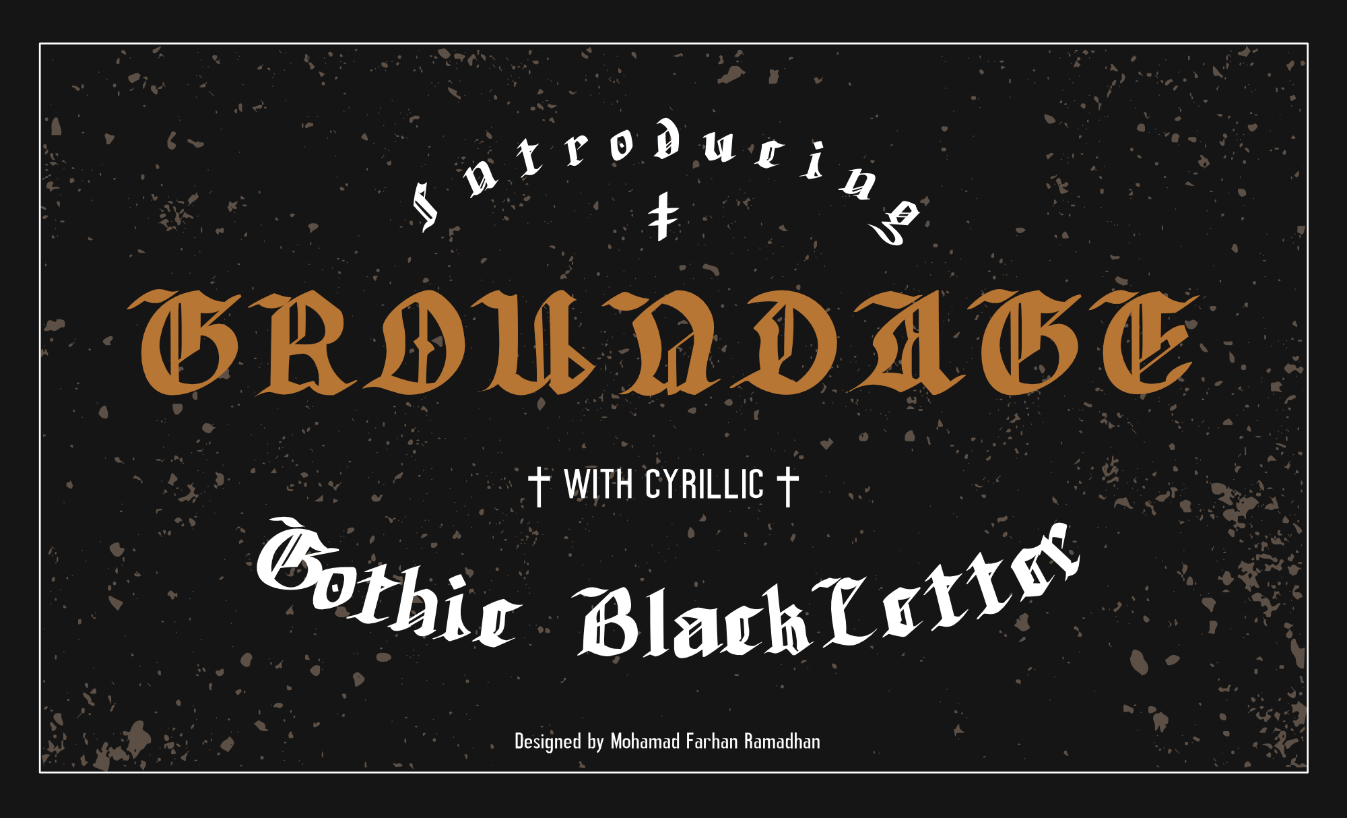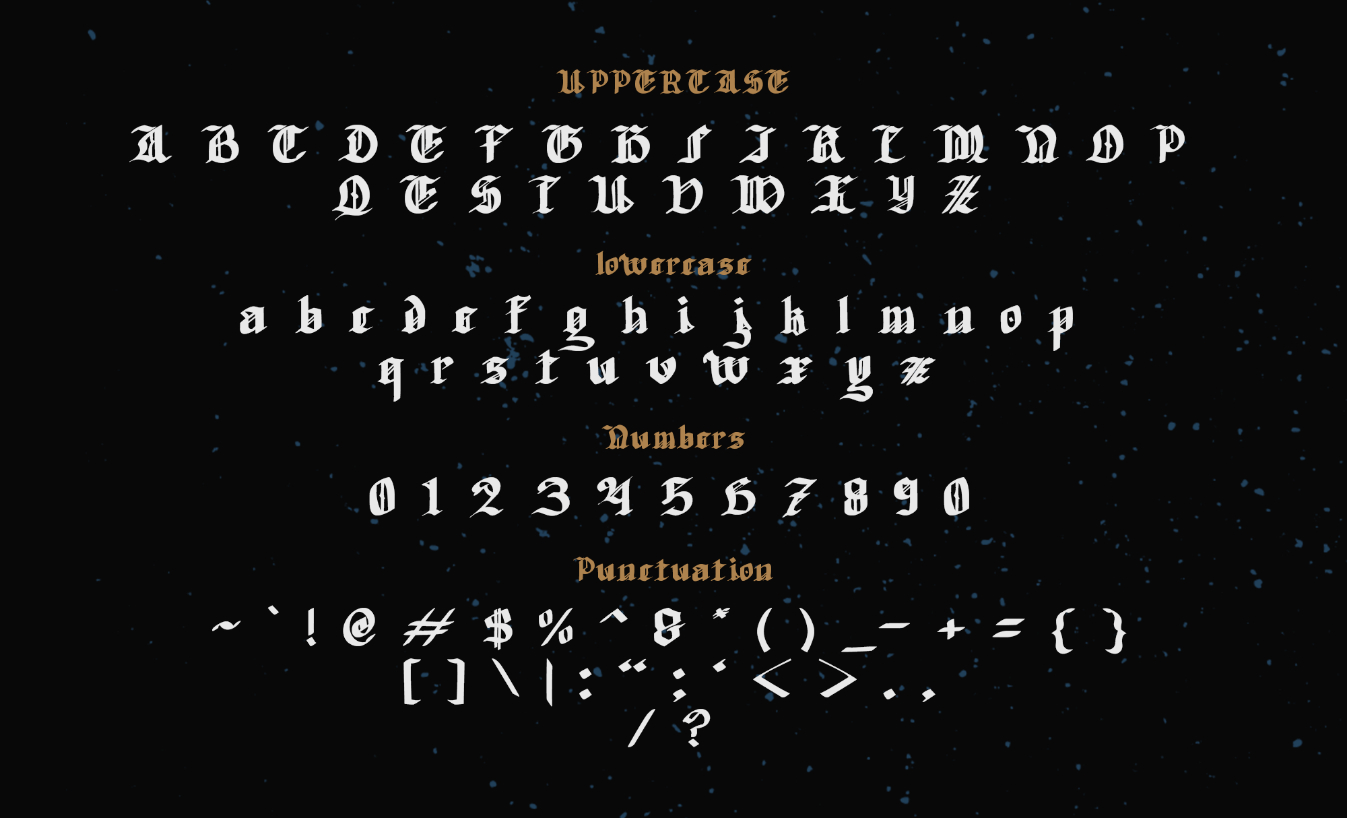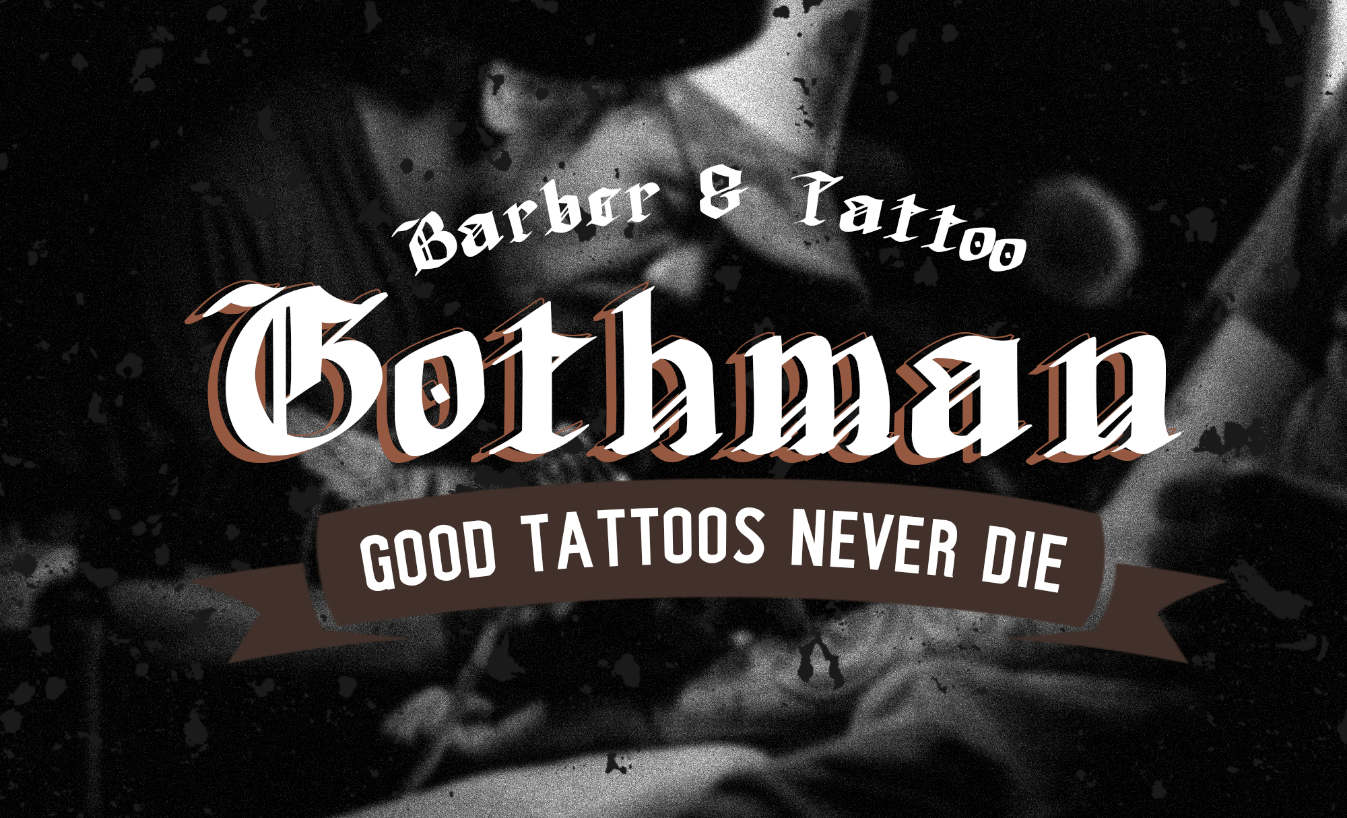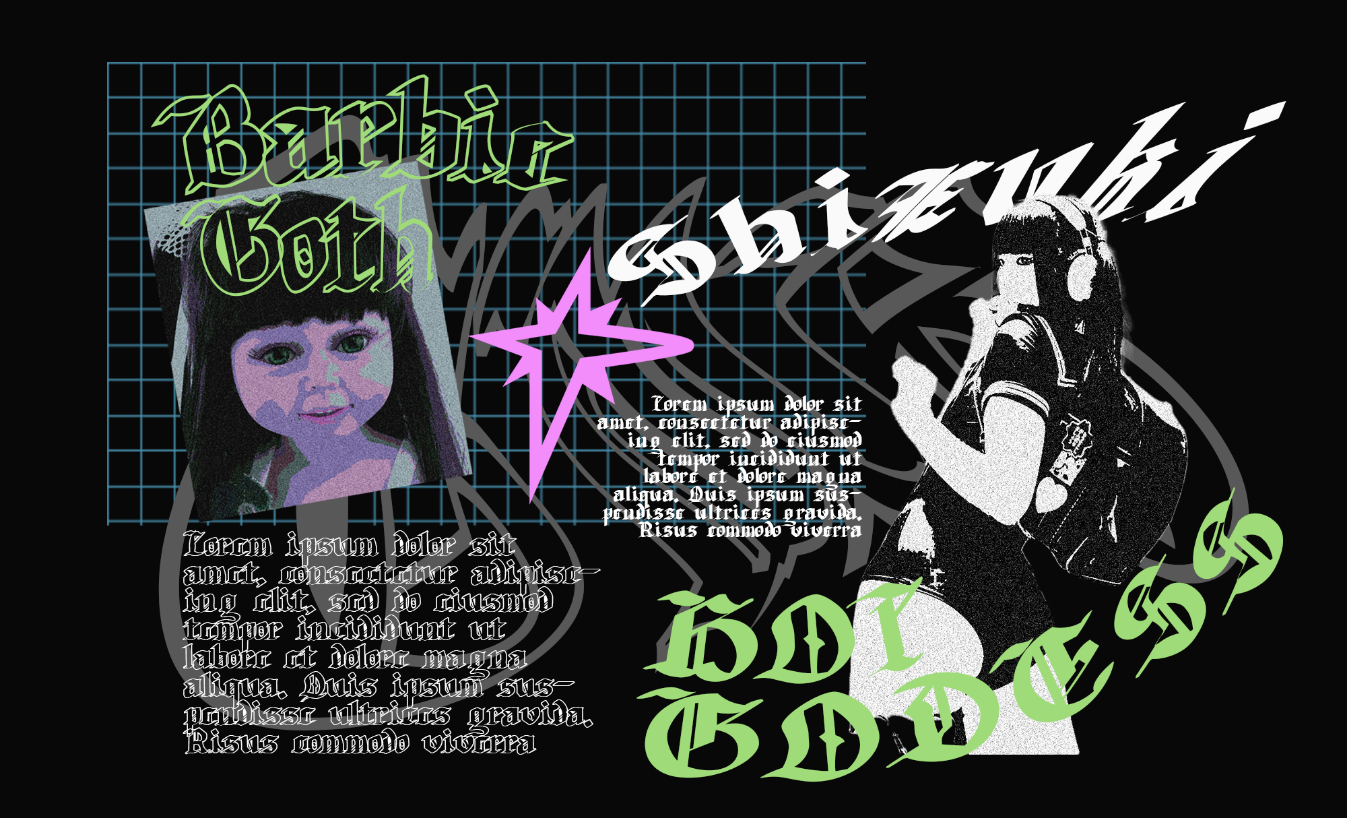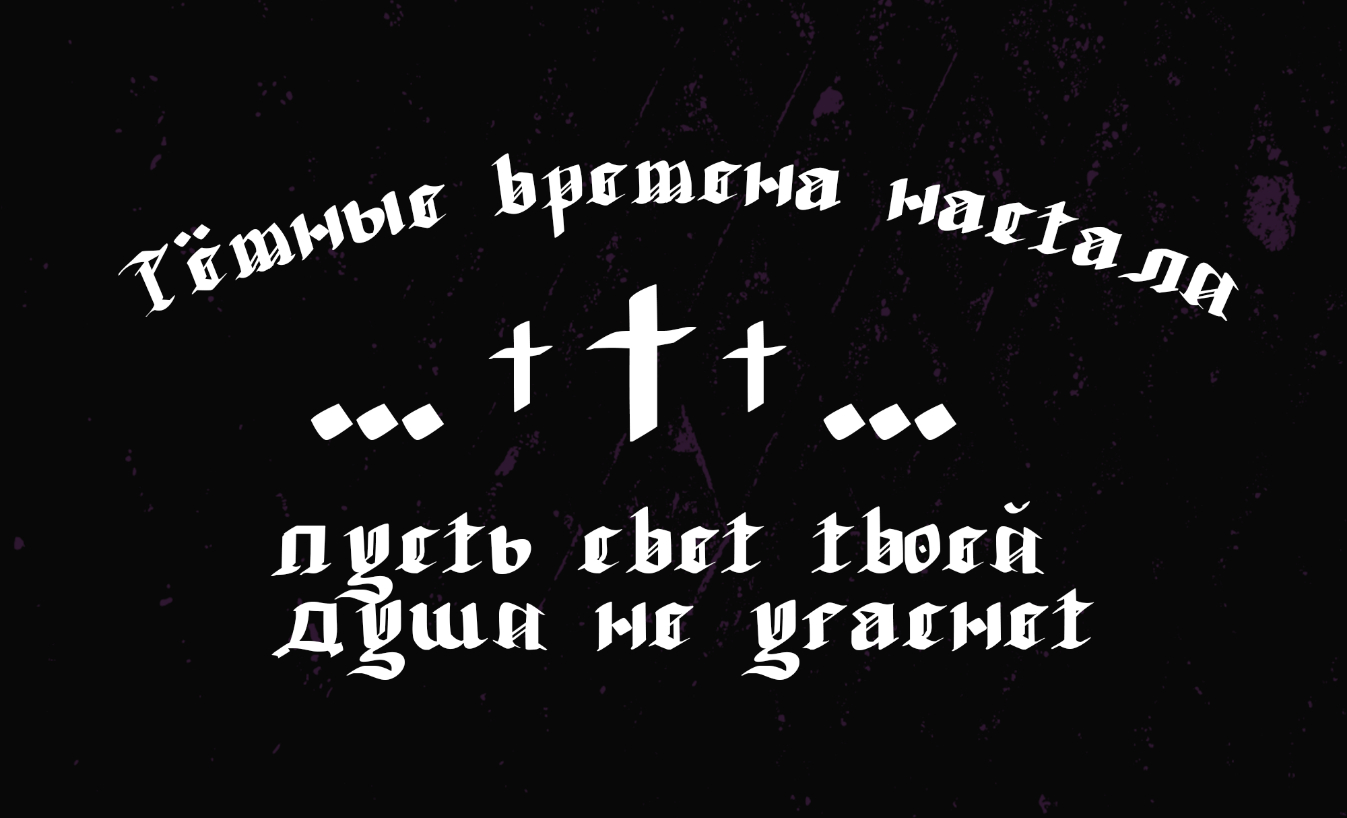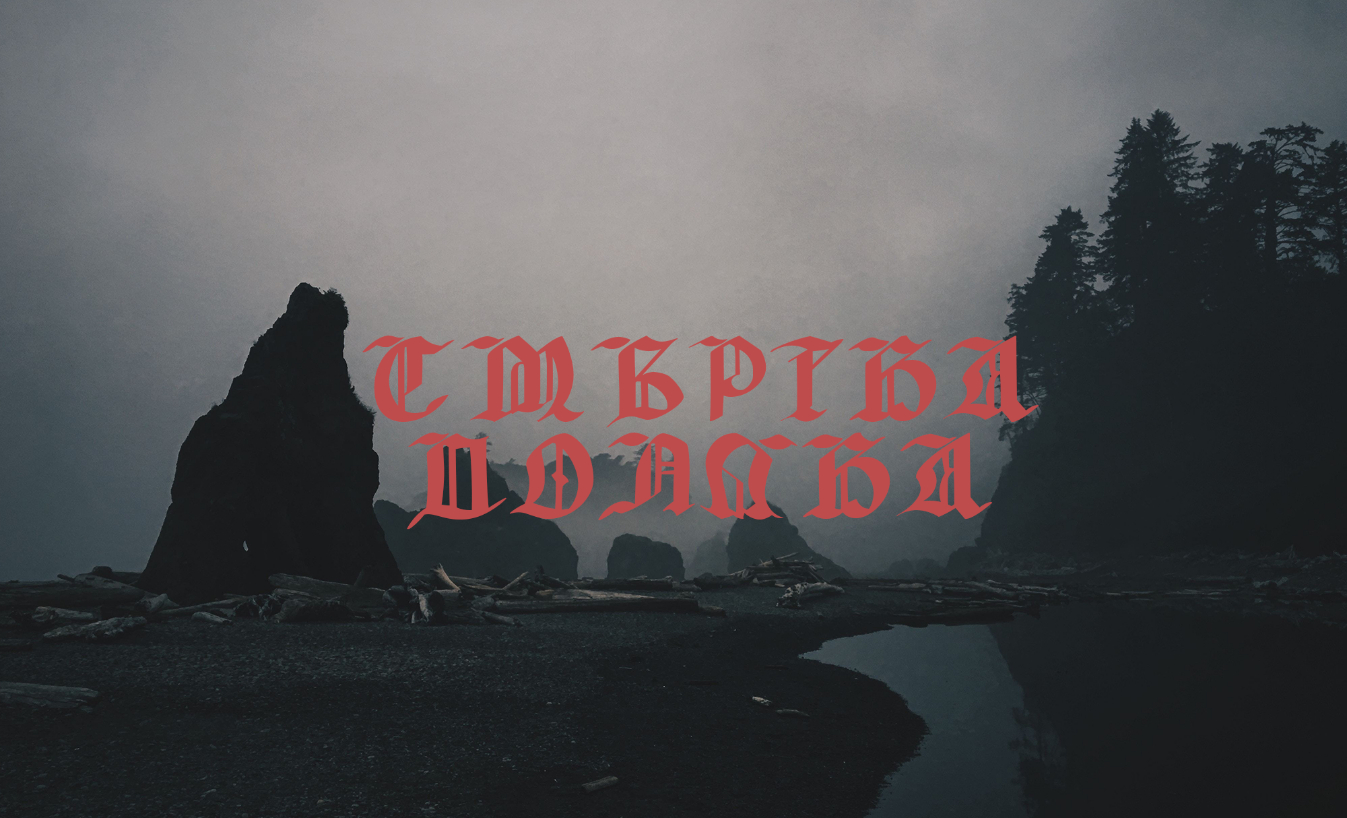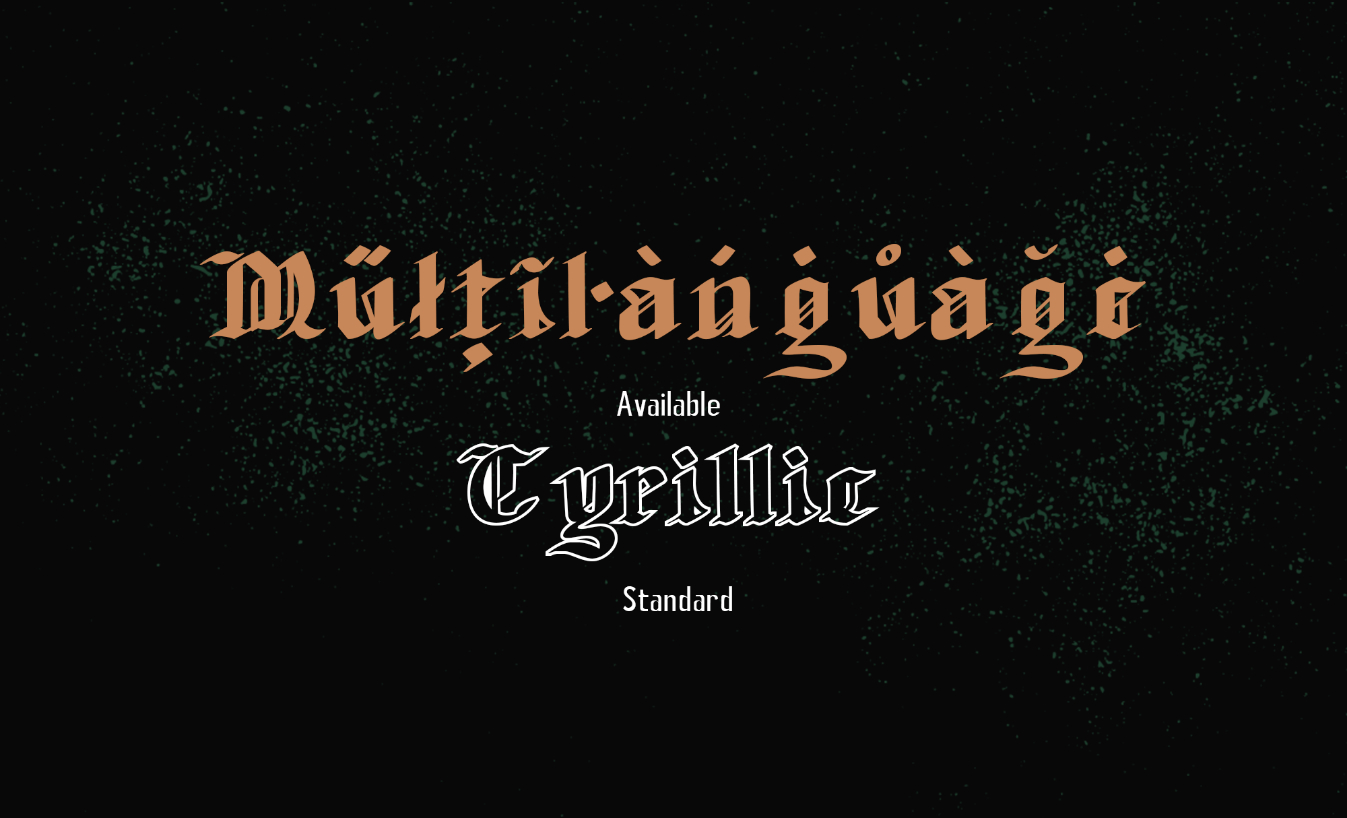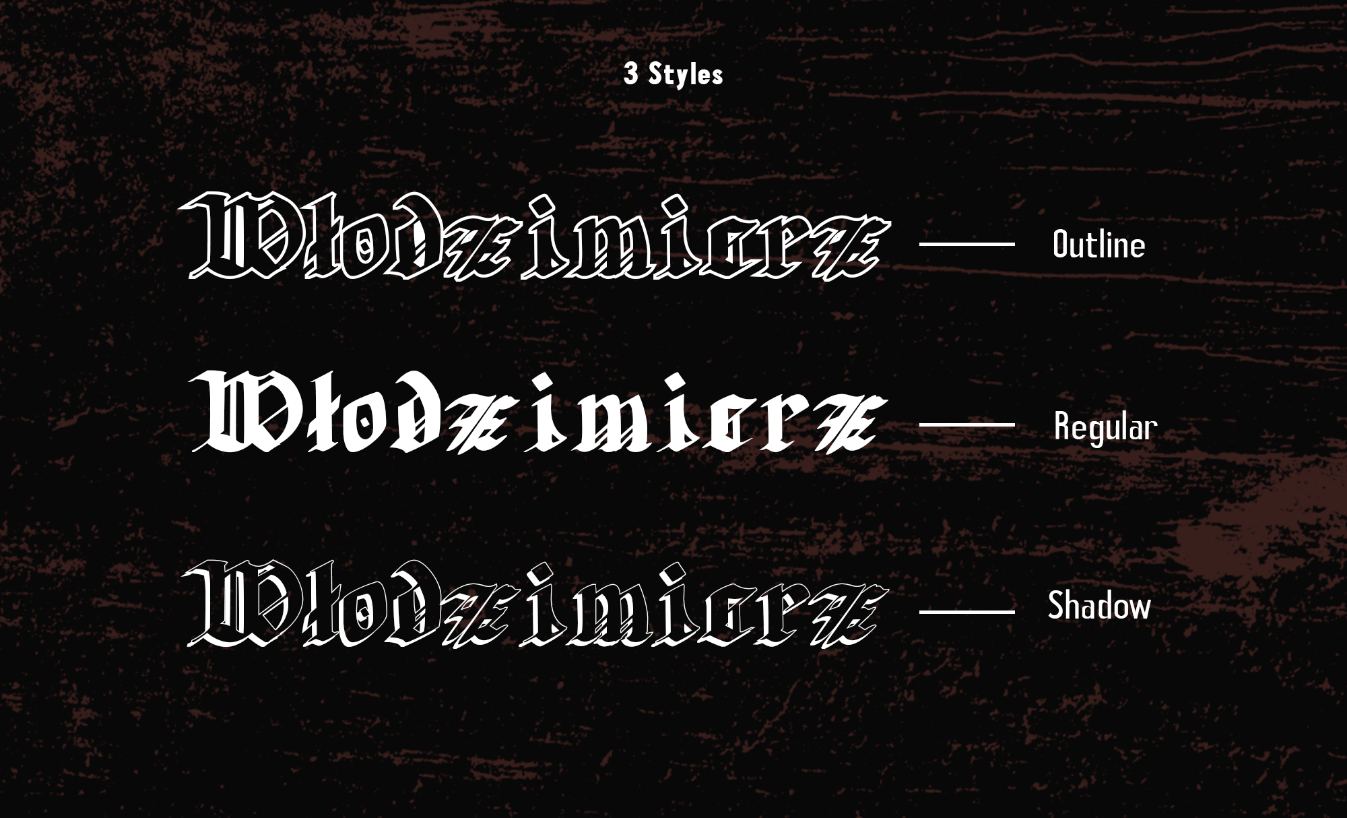
Groundage Font
About Groundage Font
Introducing Groundage, a bold and clean gothic blackletter font that exudes elegance and style. Its calligraphy and vintage elements make it perfect for creating a Y2K-inspired design or a masculine logotype. With Latin and Cyrillic characters, it’s great for posters, marketing materials, and art crafts. Whether you’re creating a y2k-streetwear design or a striking headline, Groundage is the perfect choice.